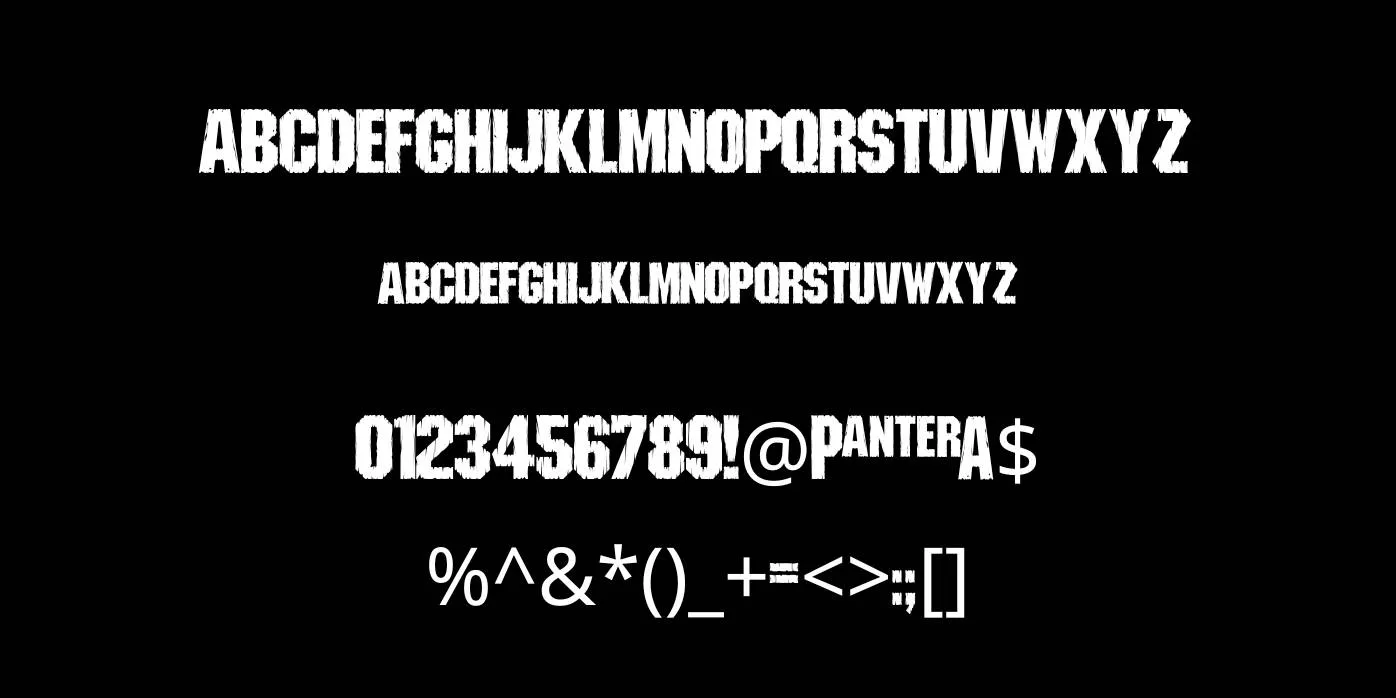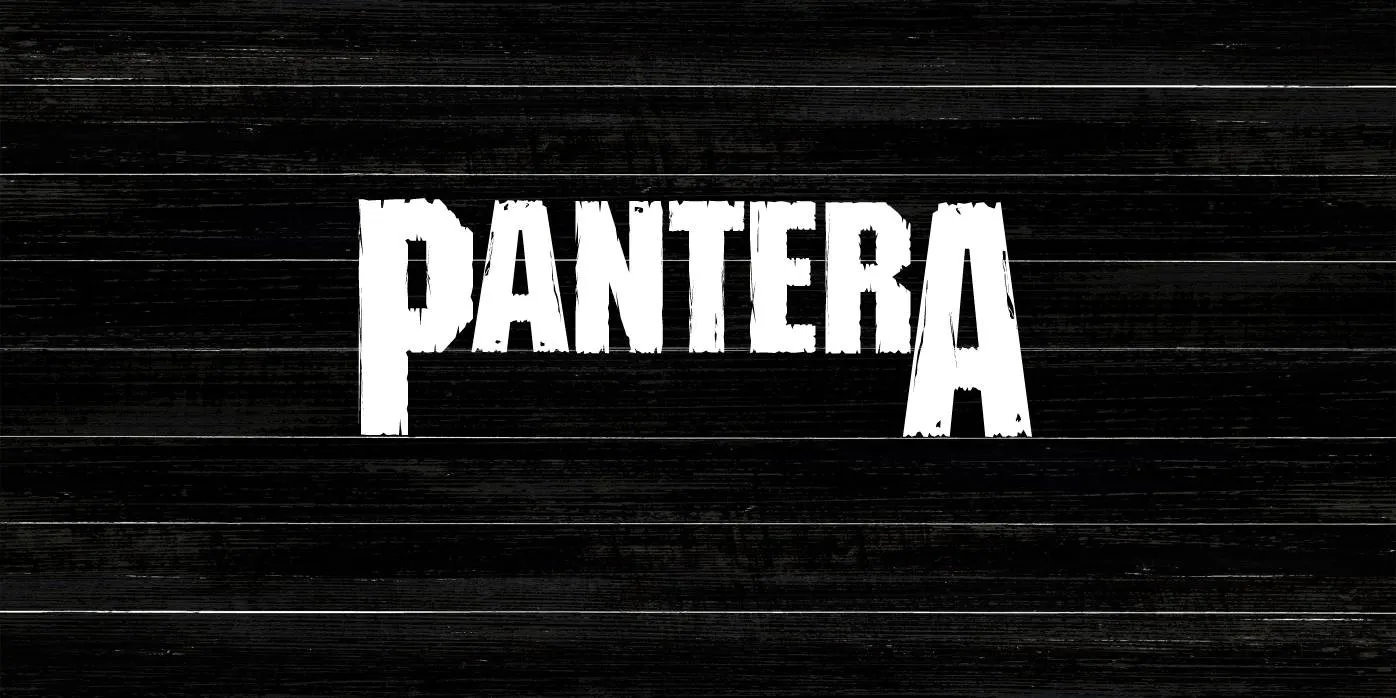
Pantera Font
Pantera Font can be used to design any different and amazing projects. This font is designed by stereotypes. It is inspired by an American Music band that was launched in 1981. It has many features that make it unique and eye-catching designs can be made by using this font.
Usage You can make unique and eye-catching projects by using this font. Its Allracters are capitalized and have a very big and attractive look. As this font is inspired by a music band you can use this for making all types of projects related to music. It can be used to design, flyers, posters, and attractive brochures.
It is a good font for both print and digital media. You can use it for advertisement on a very huge level. For making attractive social media posts, blogs, and Thumbnails for YouTube it can also be used. This stunning font can also be used to design projects for music albums by using Adobe Photoshop, CSS, and, Canva.
This stunning typeface is a very nice and amazing fancy font. It was inspired by an American music band. It has all capsall-capsk. You can use it to make many attractive designs.
This stunning font can be used to design different amazing projects such as making music album covers, banners, posters, flyers, and much more. What file formats does Pantera font support? This amazing font supports file formats TTF (True Type Font) and OTF (Open Type Font). So you can use it on many different devices such as PCs, MAC, and, Android.